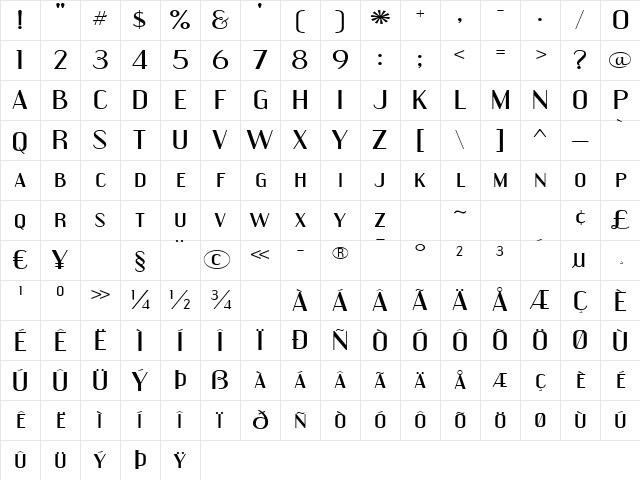
Engebrechtre Expanded Regular Free Font
Engebrechtre Expanded Regular
Design Context for Engebrechtre Expanded
Engebrechtre Expanded is a composed and adaptable typeface that performs quietly and consistently across a wide range of design contexts.
Pro Tip: Use Engebrechtre Expanded in both headline and body roles to test its range before committing to a single application.